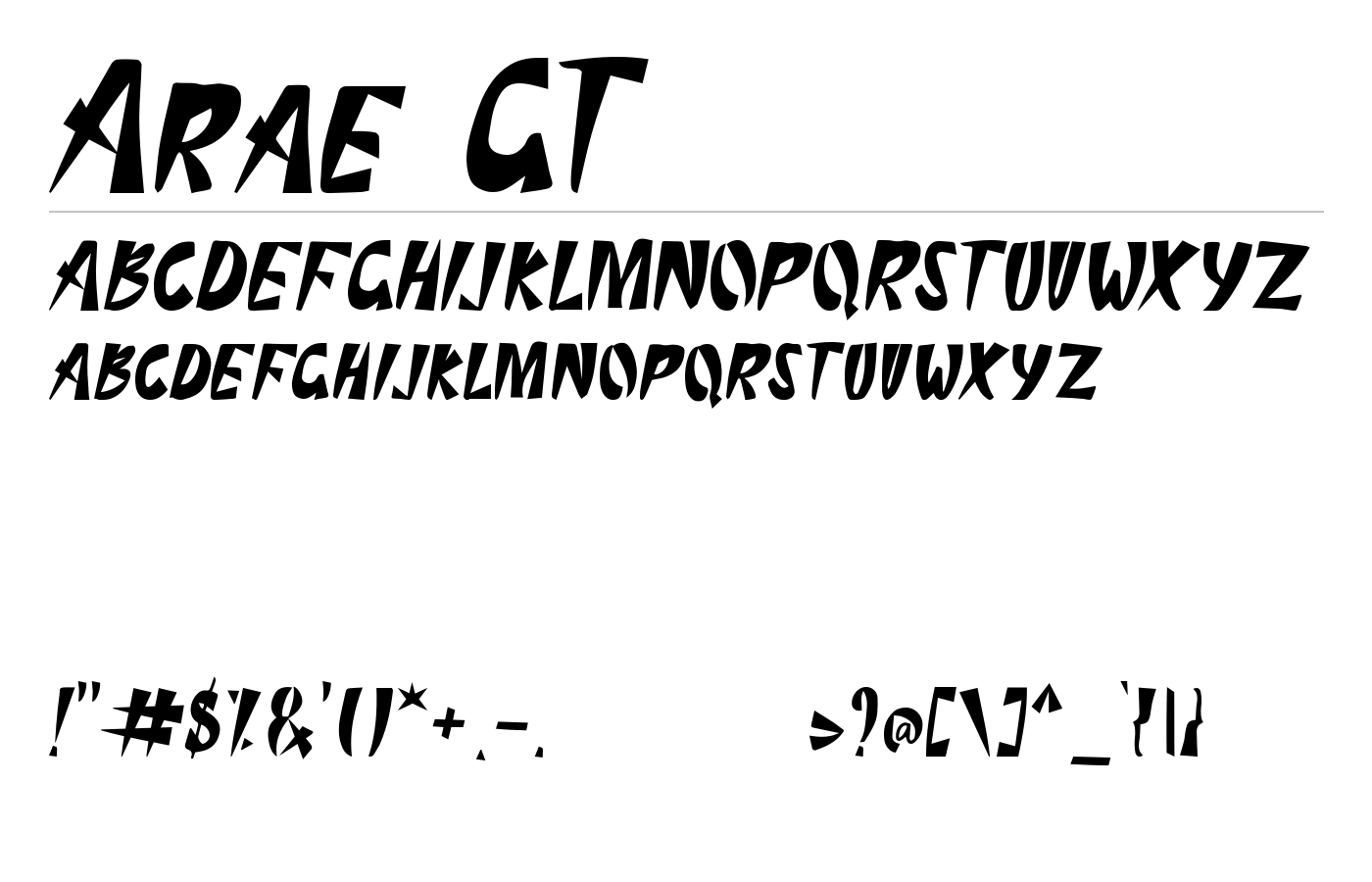
Arae GT is a bold, display sans serif font with sharp, irregular edges that give it an energetic and dynamic look. Its condensed, tall letterforms and unique angled strokes create an expressive, almost hand-drawn feel, perfect for grabbing attention in logos, posters, and edgy branding. This font works best in creative, youthful contexts where a strong, confident personality is desired.
Arae GT Font
About Arae GT Font